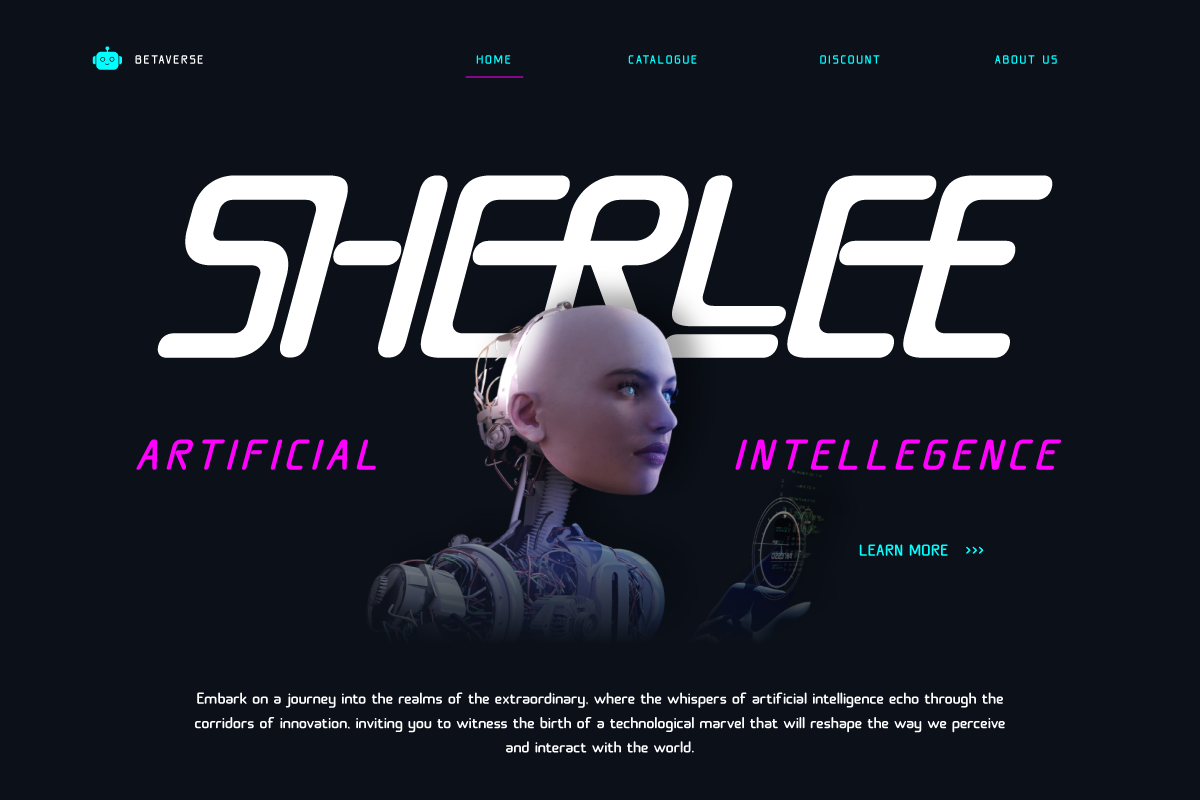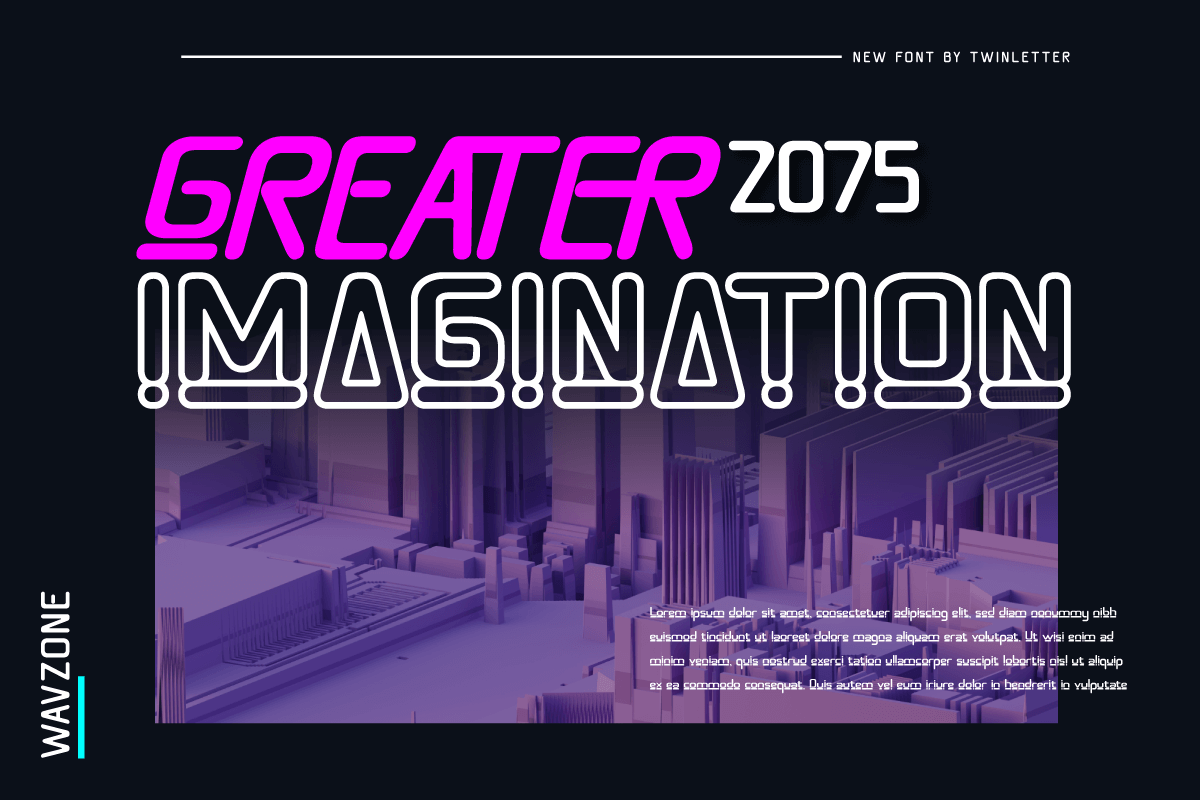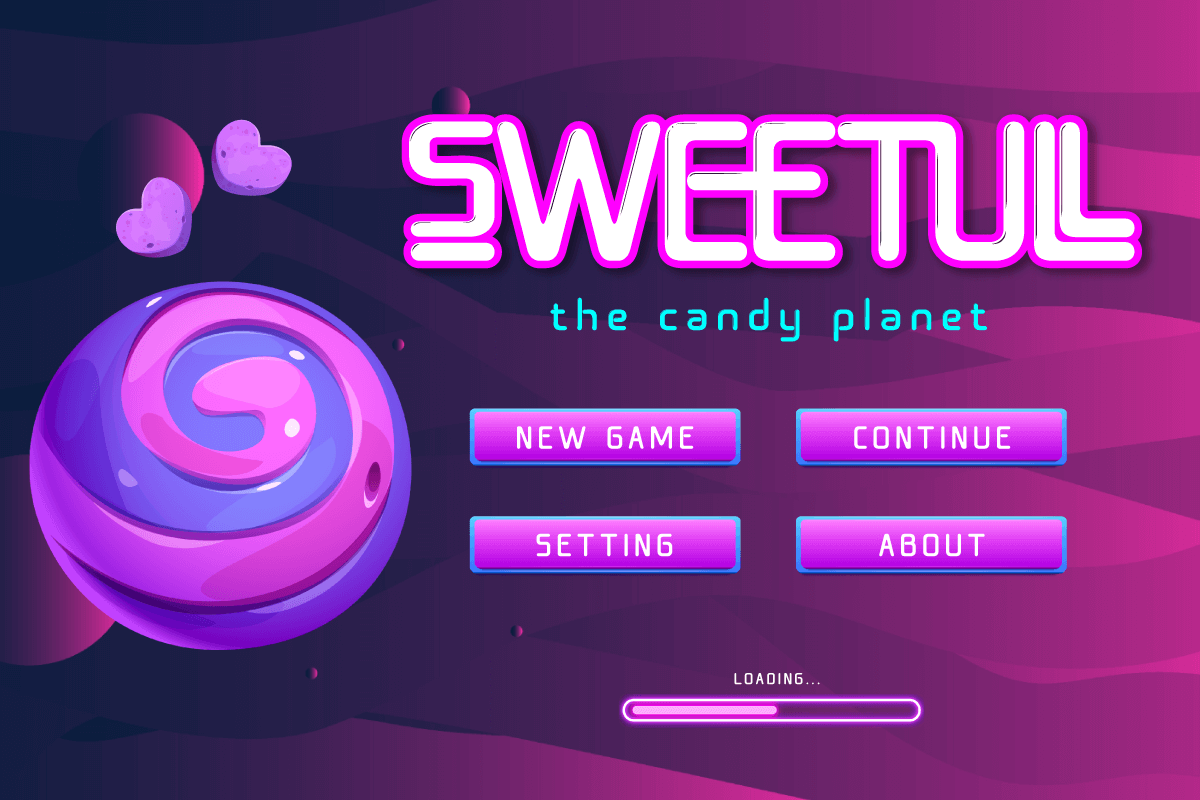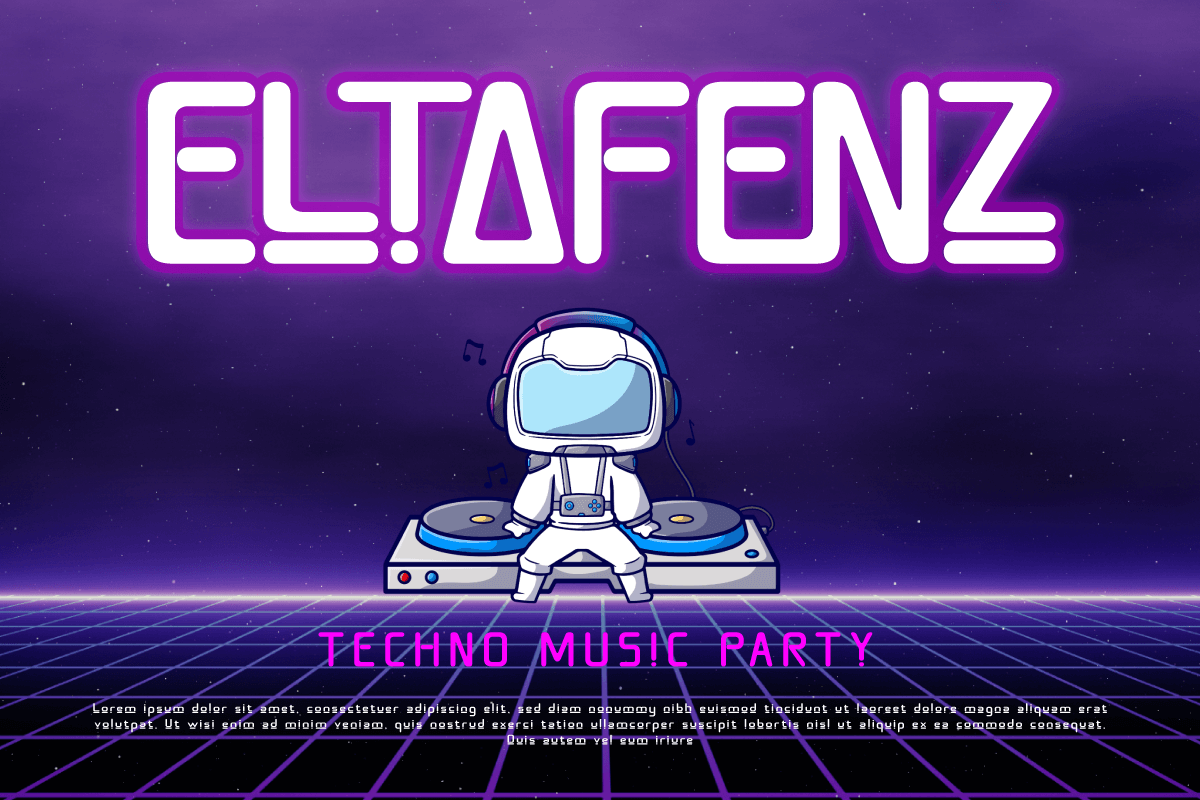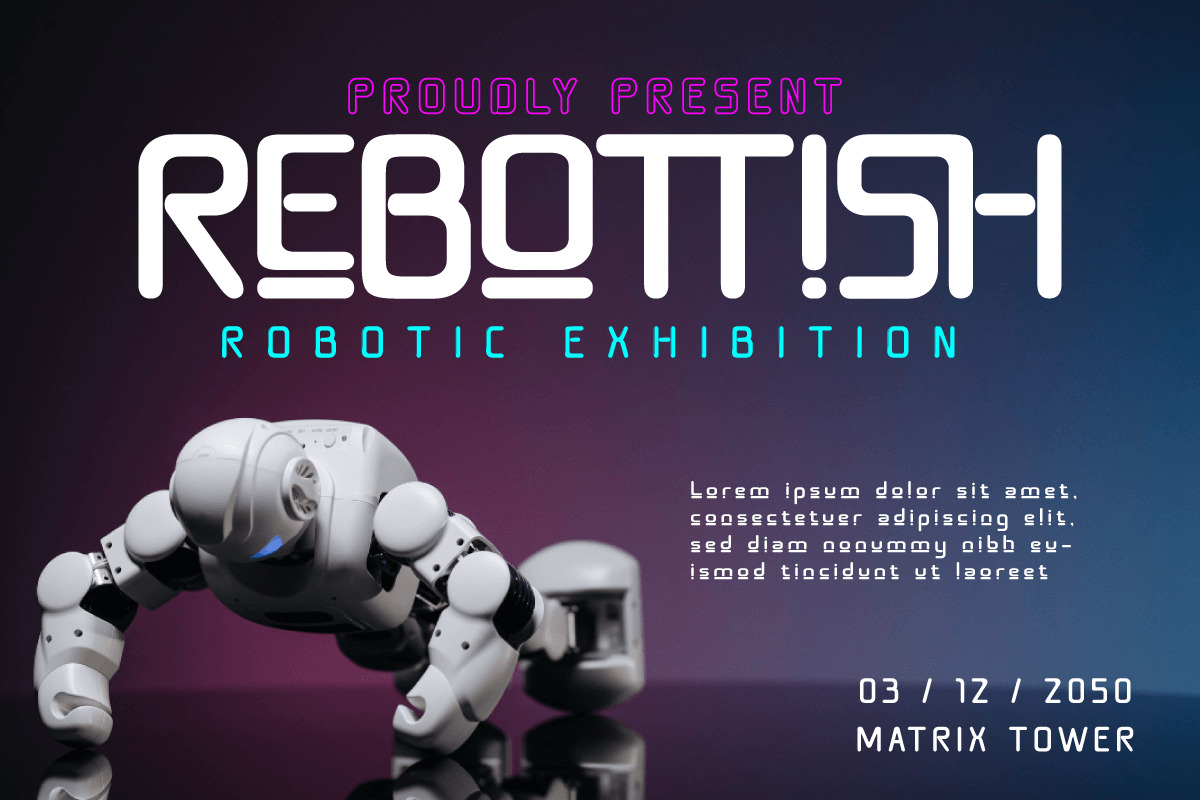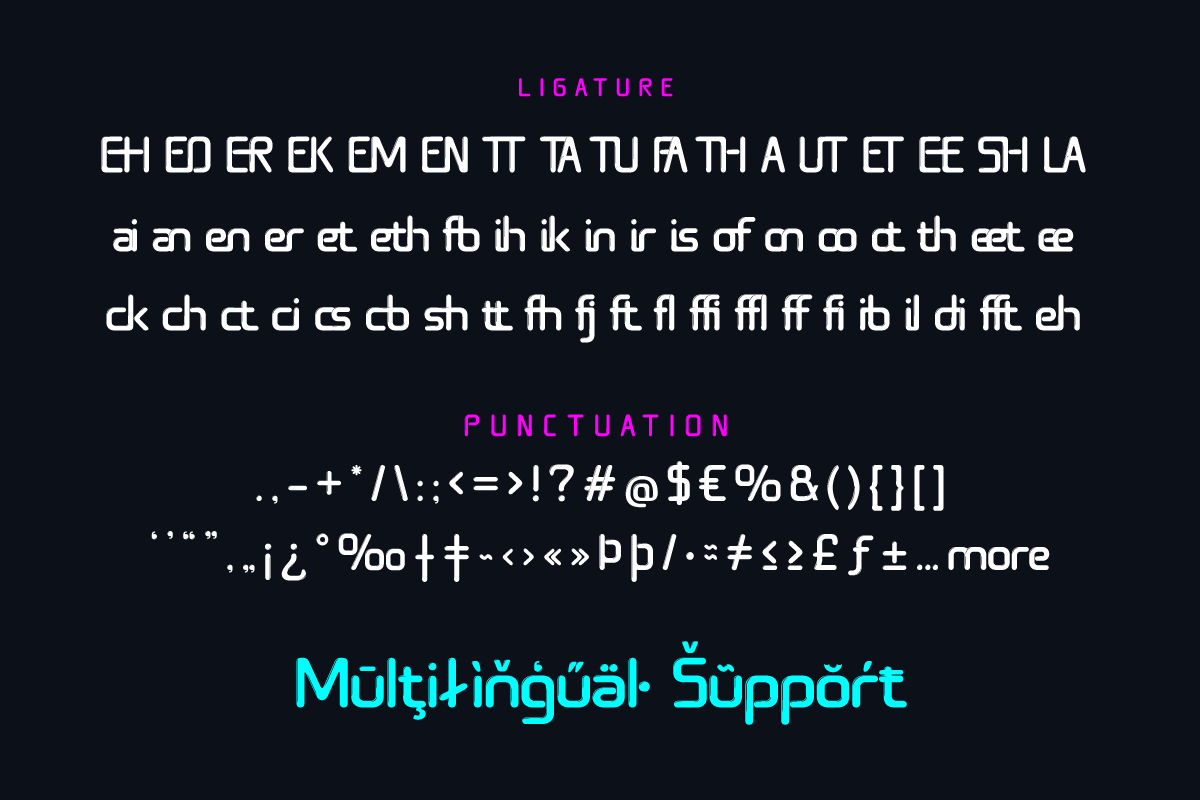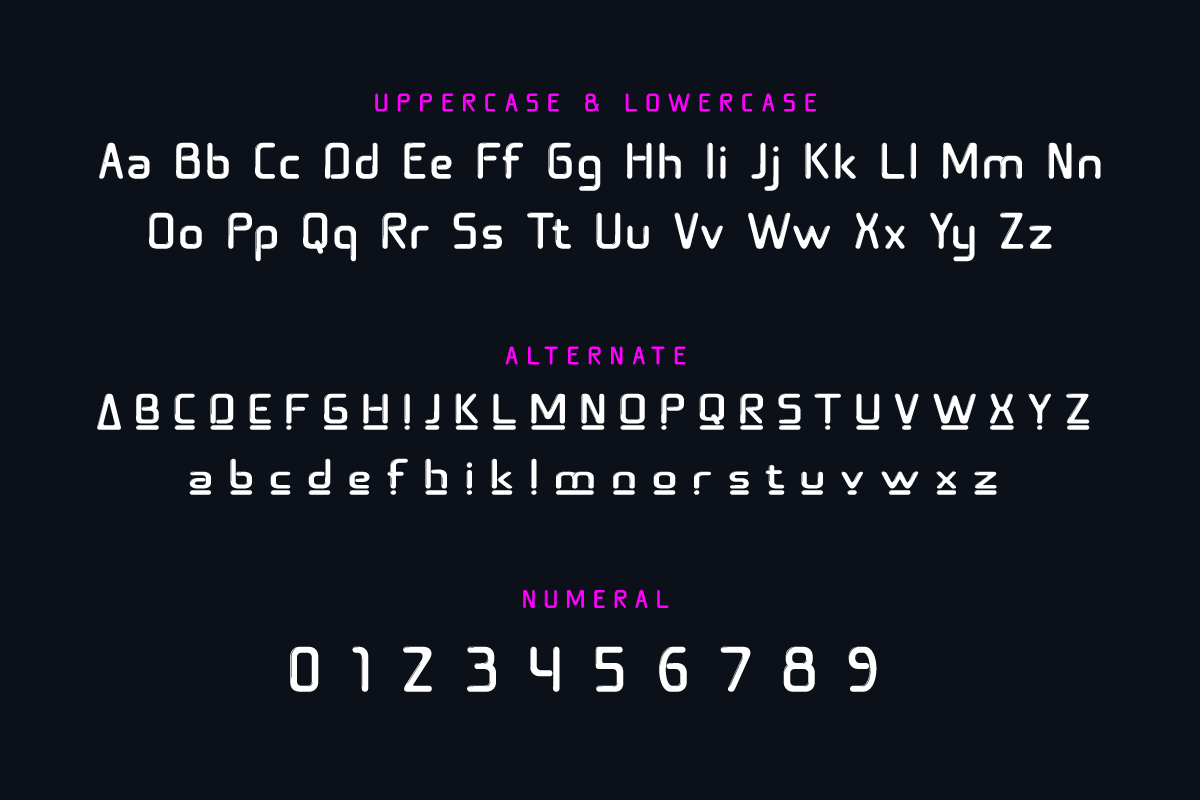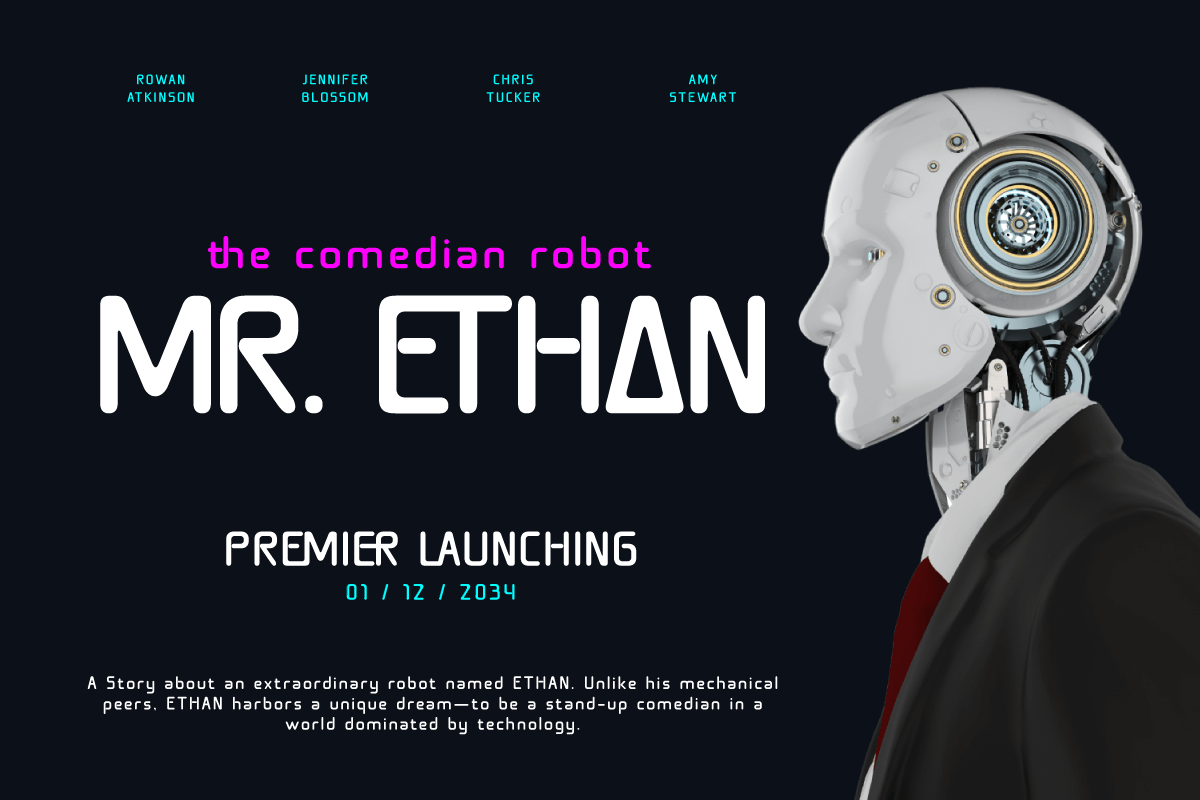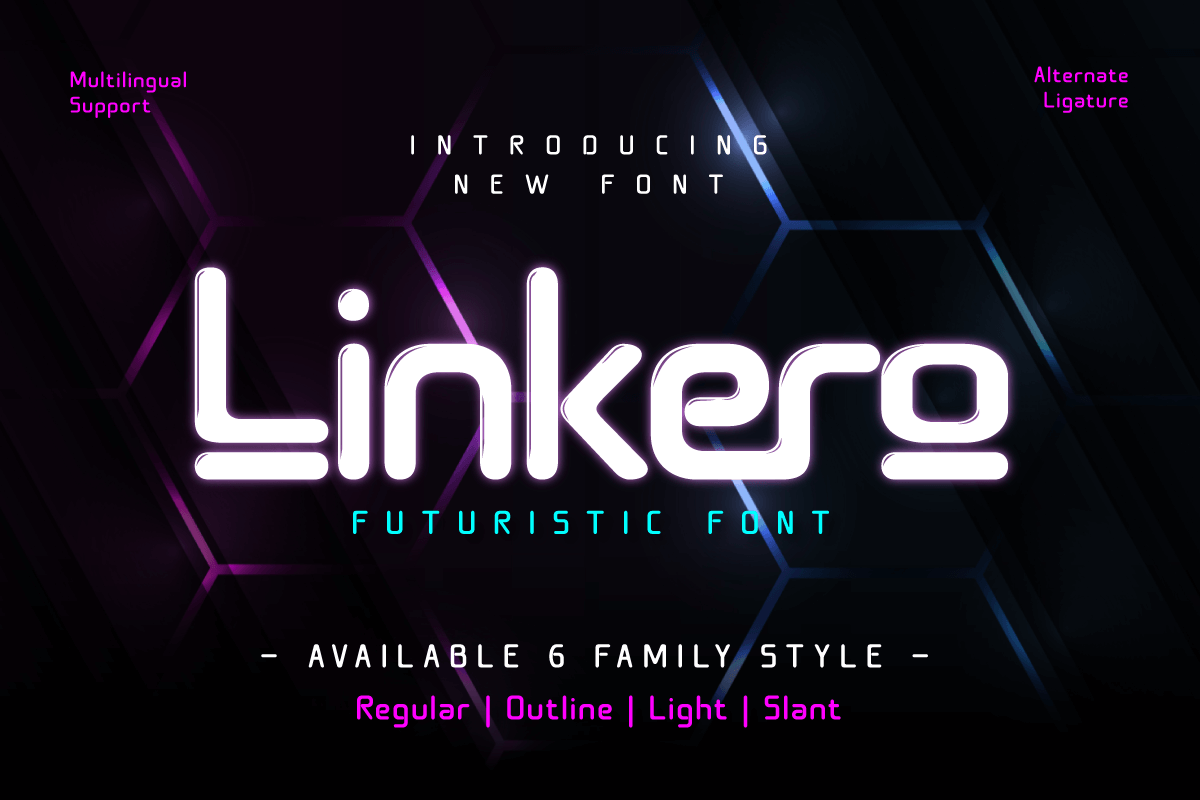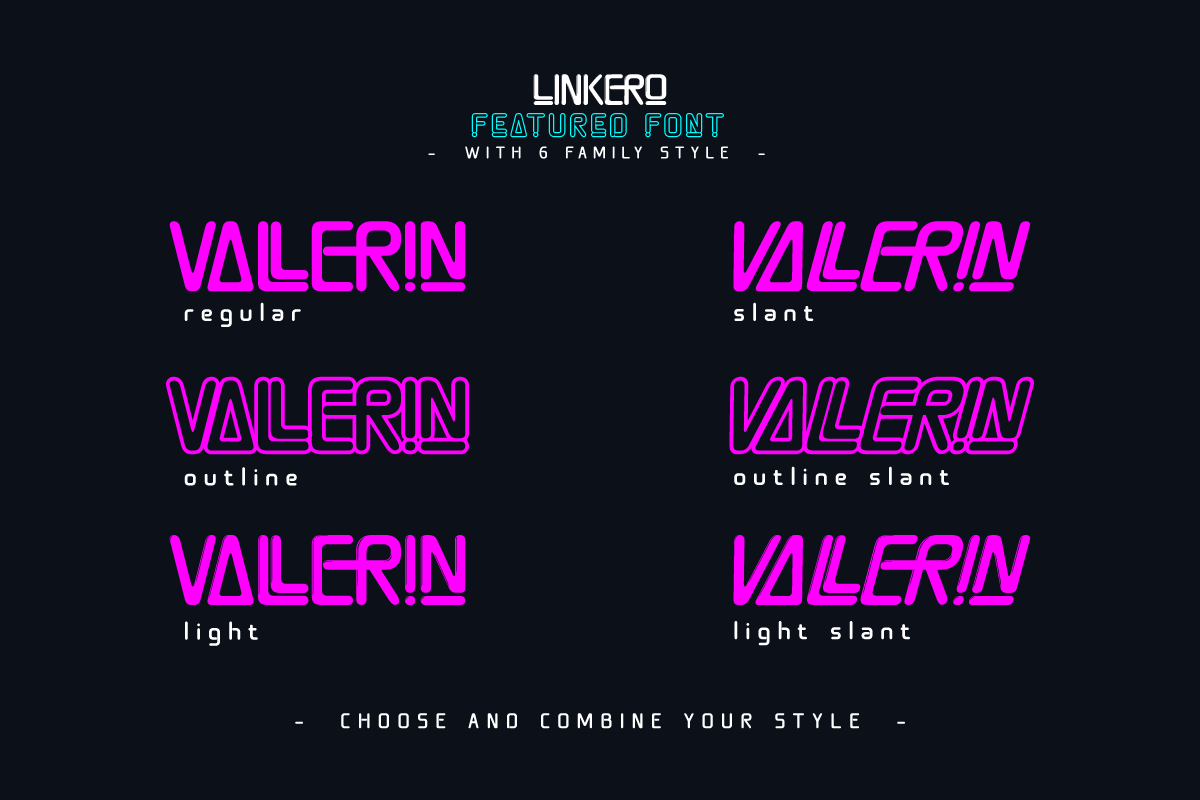
Linkero - Futuristic Font
Linkero is a futuristic font that takes your designs to the next dimension. With its superior futuristic style, Linkero is the perfect solution for projects that demand a modern and innovative touch.
Linkero's cutting-edge style is the best choice for web design, brand identity, and other creative projects with a future theme. The clarity of each letter creates a strong, contemporary look.
Linkero has six style families such as Regular, Outline, Light, and Slant, providing extraordinary design flexibility. This font also supports multiple languages, making it a universal choice for your global audience.
With Linkero, don't just compromise on sustainability, but imprint a futuristic signature on each of your projects. Discover unlimited design potential with this font.